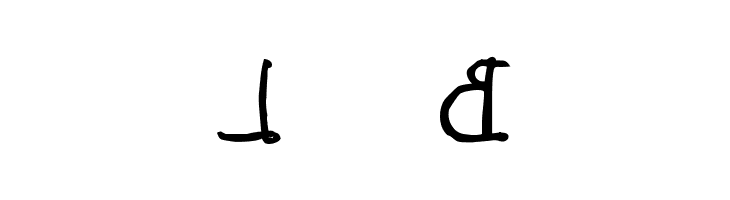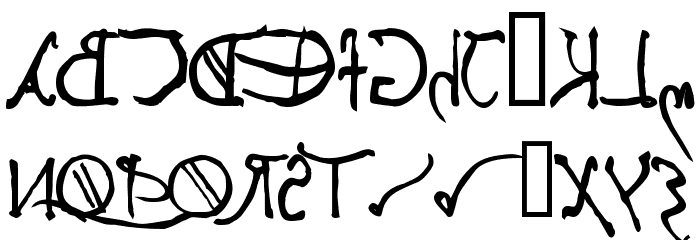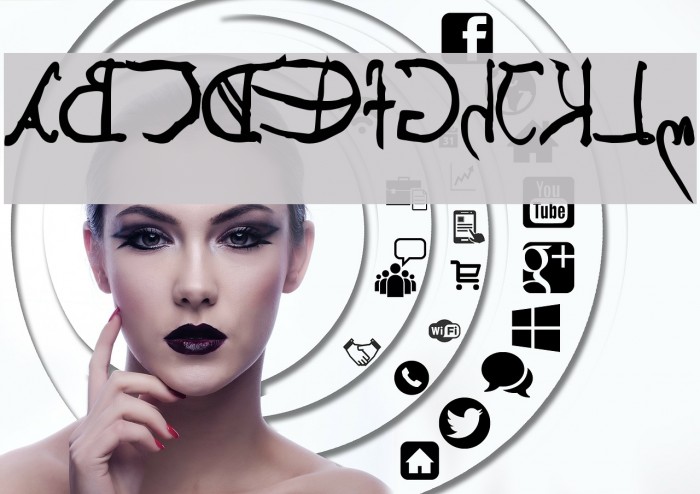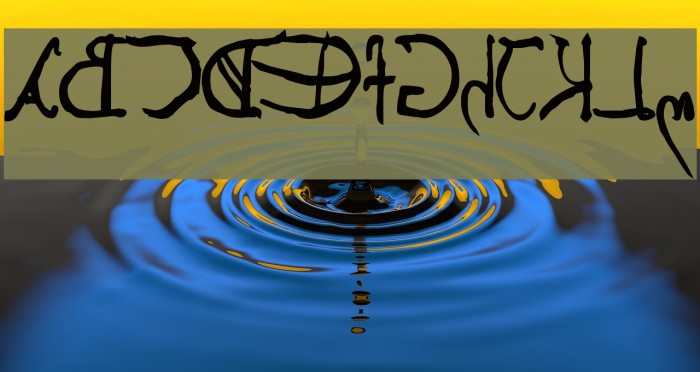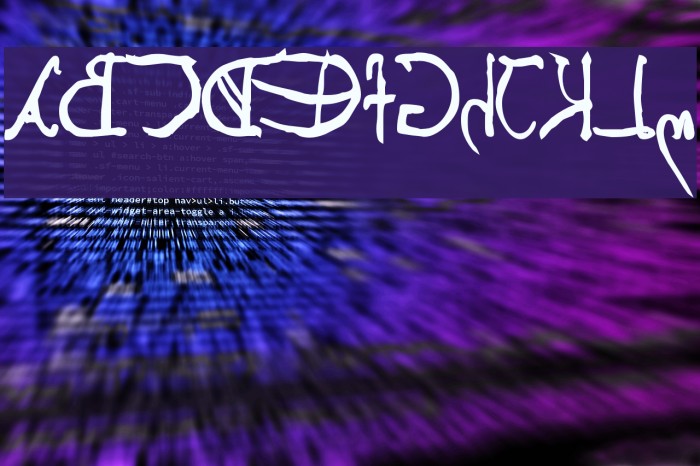
Leonardos mirrorwriting Bold Font
Leonardos mirrorwriting Bold Description
This font is a unique and artistic representation of mirror writing, reminiscent of Leonardo da Vinci's style. The characters are bold and exhibit a hand-drawn, calligraphic quality with a distinct backward slant. The strokes are uneven, adding a dynamic and expressive feel to the text. Each letter is crafted with intricate details, showcasing a blend of historical and artistic influences. The font's design is both decorative and functional, making it suitable for creative projects that require a touch of historical elegance and mystery.
A bold, calligraphic font with a mirror-writing style and artistic flair from Uncategorized fonts.
- Proposed Projects: Ideal for artistic projects, historical themed designs, creative posters, and unique branding materials.
- Use Case: Logos, Artistic projects, Historical themes